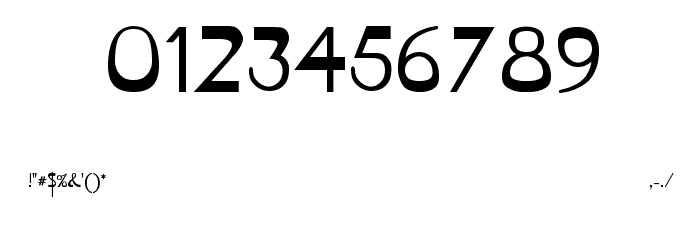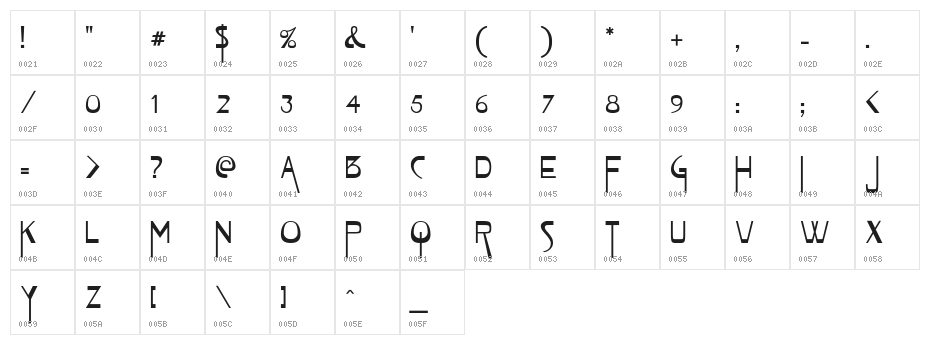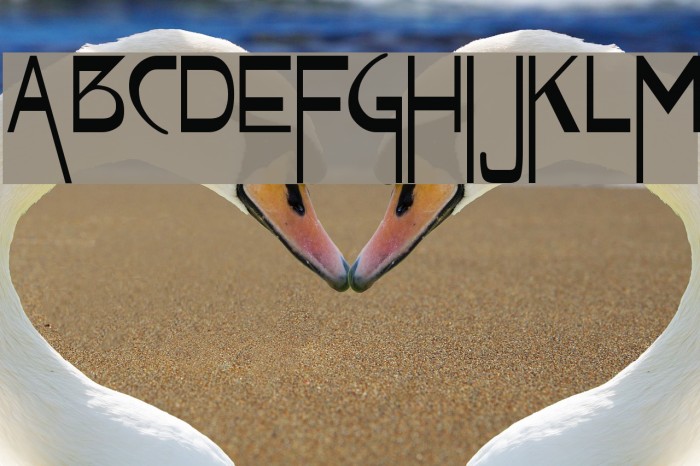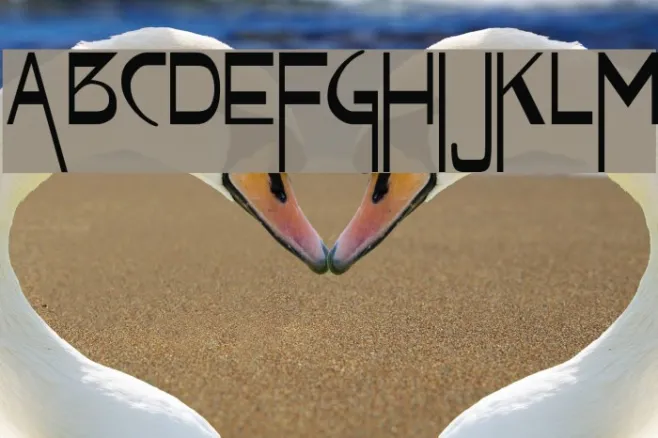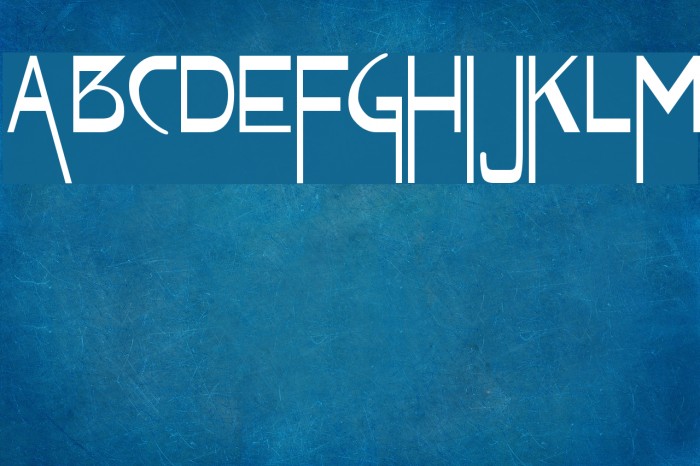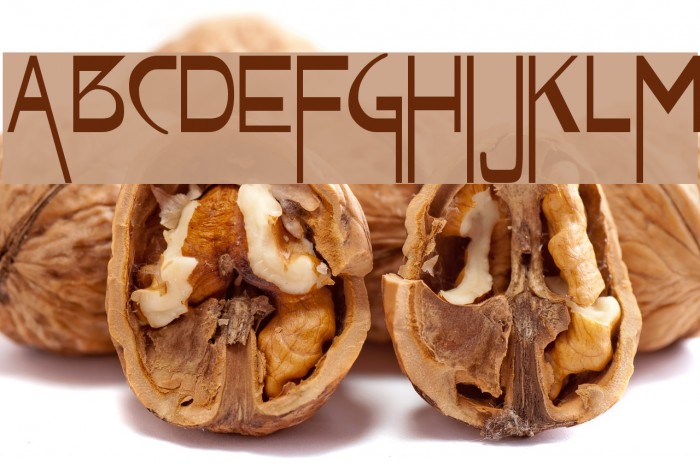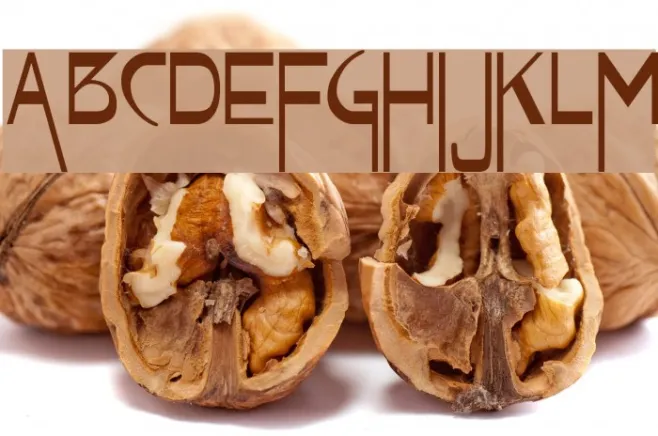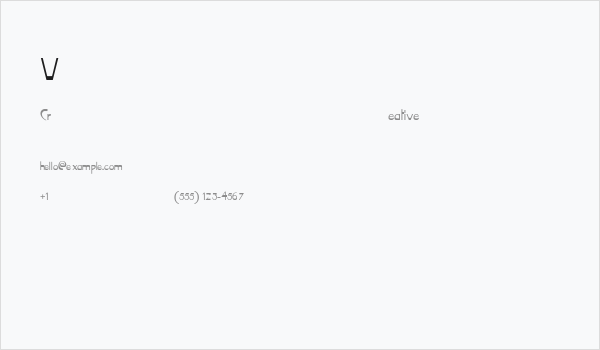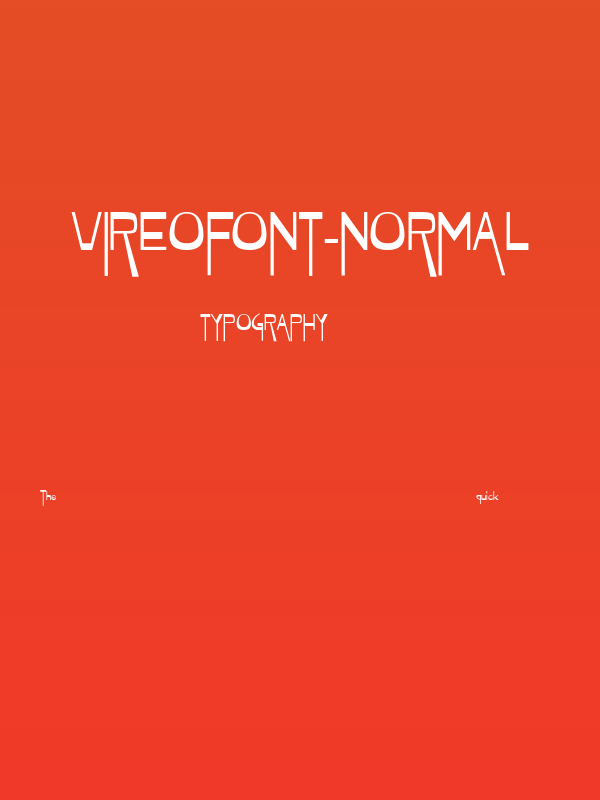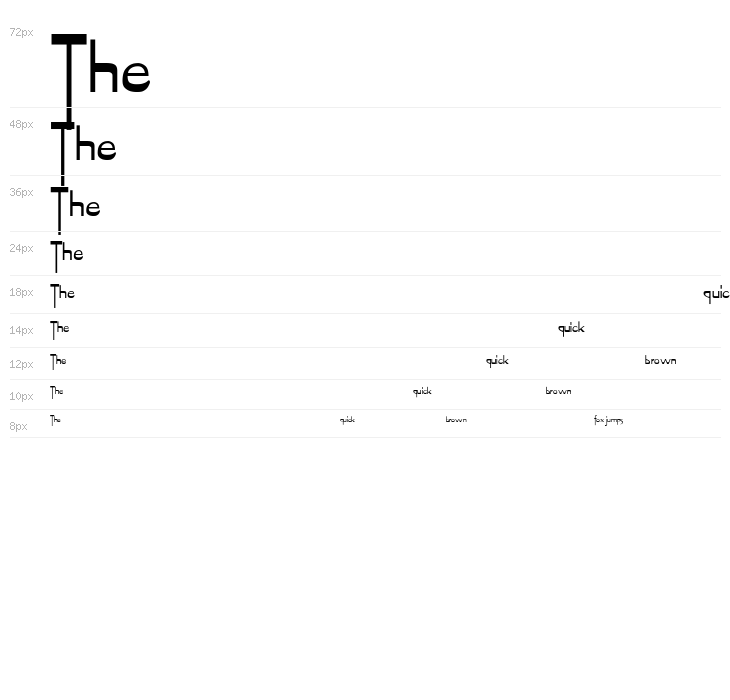
VireoFont-Normal Font
VireoFont-Normal Description
This font features a unique and modern design with a geometric flair. The uppercase letters are characterized by sharp angles and elongated vertical strokes, giving them a futuristic appearance. The lowercase letters maintain a consistent style with rounded edges and a sleek form. Numbers are bold and clear, matching the overall aesthetic. Special characters are designed to complement the letters, maintaining the same geometric and modern look. The font's distinct style makes it suitable for creative and contemporary projects.
| Proposed Projects | Ideal for branding, posters, and digital media where a modern and futuristic look is desired. |